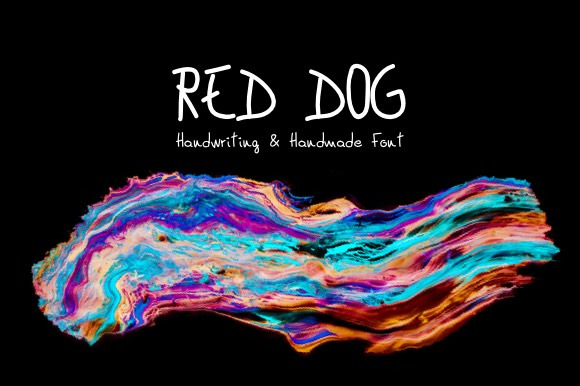
Red Dog Handwriting Font
A beautiful hand made font containing upper & lowercase characters, numerals and a large range of punctuation to help you design cards, shirts or anything else you need.